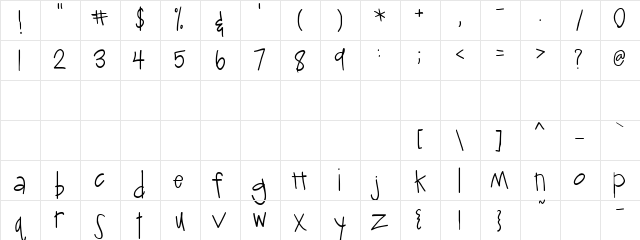
2peas name me Regular
| Foundry | Two Peas in a Bucket |
| Designer | Amy Grendell |
Design Context for 2peas name me Typeface
2peas name me is a composed and adaptable typeface that performs quietly and consistently across a wide range of design contexts.